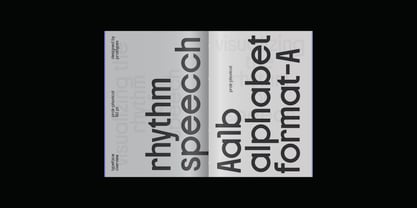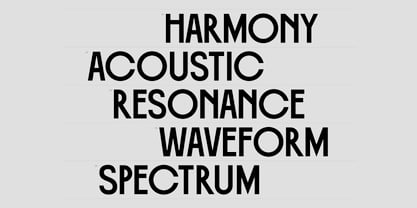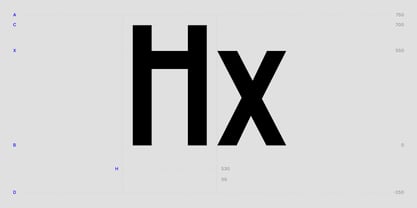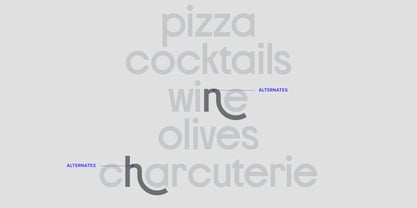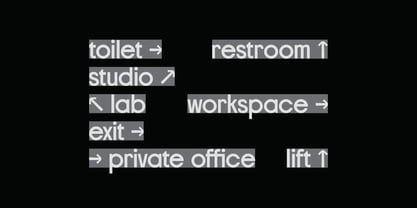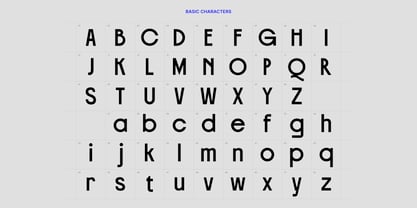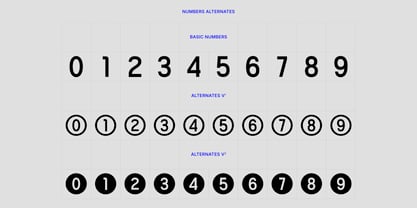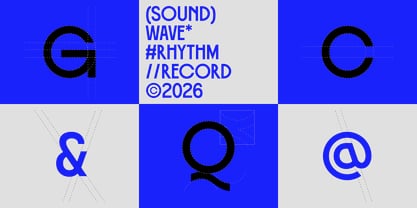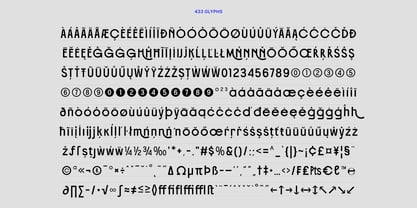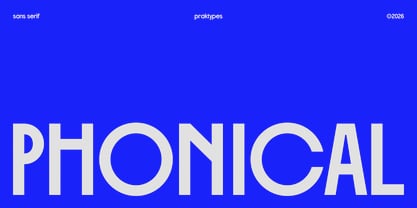
PRAK Phonical
The PRAK Phonical Font Family was designed by Andreas Rossi and published by Praktypes. PRAK Phonical contains 1 styles. More about this family
PRAK Phonical is a premium display typeface designed to strike a balance between high-reaching elegance and bold geometric precision. Inspired by Minimalism, this font features a unique rhythmic contrast: towering, slim verticality paired with perfectly circular forms in characters such as 'O' ,'C',and 'G'
With its solid stroke weight and commanding presence, PRAK Phonical is engineered for designers who need a headline that feels both authoritative and sophisticated. Its architectural structure ensures that every word makes a definitive statement, making it the perfect choice for modern branding and high-end editorial design.
Key Highlights:
• Tall & Commanding: A condensed silhouette that adds height and prestige to any layout.
• Geometric Perfection: Flawlessly round curves that provide a satisfying visual contrast to its narrow stems.
• Bold Authority: A thick, consistent weight that ensures maximum impact and professional clarity.
• Versatile Modernism: Clean, sans-serif lines that fit seamlessly into contemporary and minimalist aesthetics.
Perfect For:
• Branding: Creating high-end logos and visual identities.
• Editorial Design: Commanding headlines for fashion or architecture magazines.
• Poster Art: Bold typography for cinematic and exhibition graphics.
• Packaging: Giving products a sophisticated, modern edge.
• Digital Content: Striking social media headers and avant-garde web design.